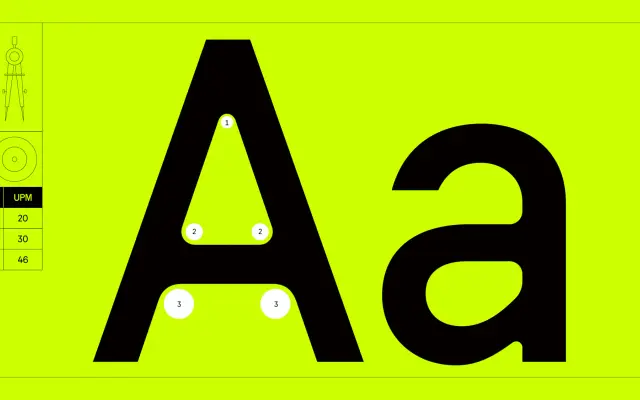
F37 Analog
F37 Analog specimen from F37 Foundry
A geometric sans from F37 with a late-1990s and early-2000s tech accent, leaning into Millennium Dome and Y2K nostalgia.
A geometric sans from F37 Foundry that pulls on the visual memory of the late 1990s and early 2000s, from the Game Boy Colour and Sydney 2000 through to the Millennium Dome. Six upright weights run from Thin to Bold across a single width, and the foundry pairs it with F37 Hooj and F37 Blanka in their suggested combinations. Suits identity, editorial and packaging work that wants a clean Y2K-tinged voice without going full pastiche.
F37 frame Analog around late-1990s and early-2000s digital nostalgia, citing reference points such as the Game Boy Colour, Sydney 2000 and Y2K. Reads as a clean geometric sans with a slightly retro-tech accent.